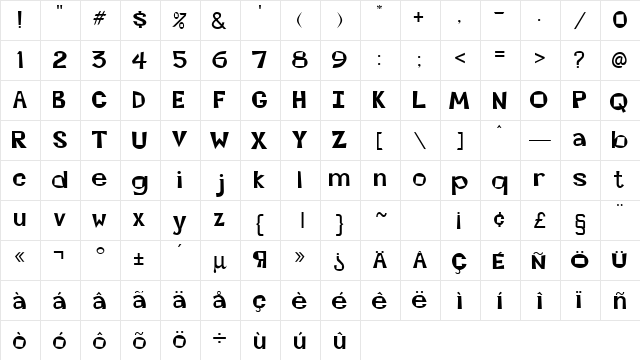
Kweilin Normal
Design Context for Kweilin Typeface
Kweilin offers clean, dependable letterforms without strong stylistic allegiance, making it a practical choice for designers who need flexibility.
Pro Tip: Use Kweilin in both headline and body roles to test its range before committing to a single application.